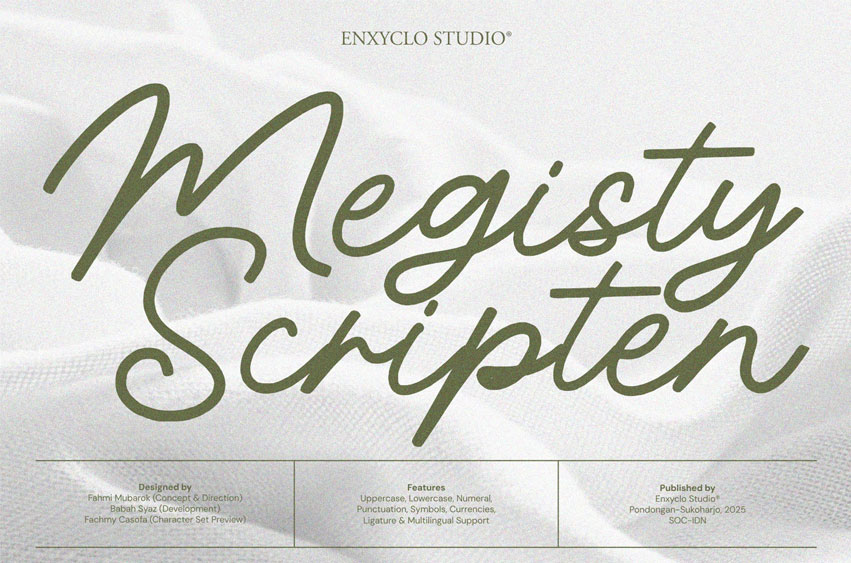
Megisty Font is a modern, luxury, and elegant monoline script font designed to elevate any brand with a touch of lavish sophistication.
With its bold yet fluid strokes, MEGISTY exudes a premium and rich aesthetic—perfect for high-end fashion, cosmetic, beauty, and skincare projects. Every curve is crafted to feel fancy, glamourous, and beautifully aesthetic, making it an ideal choice for logos, boutiques, and upscale creative agency visuals.
Whether you’re building a statement logo, shaping a luxurious brand identity, or crafting elegant product packaging, MEGISTY brings refined style and timeless appeal to every design.
• Uppercase letters
• Lowercase letters
• Punctuation marks
• Symbol set
• Currency symbols
PERFECT FOR
• Luxury brand logos
• Beauty & cosmetic packaging
• Skincare product branding
• High-end editorial layouts
• Premium social media templates
• Creative agency projects
• Elegant wedding invitations
• Signature-style branding
• Aesthetic product labels